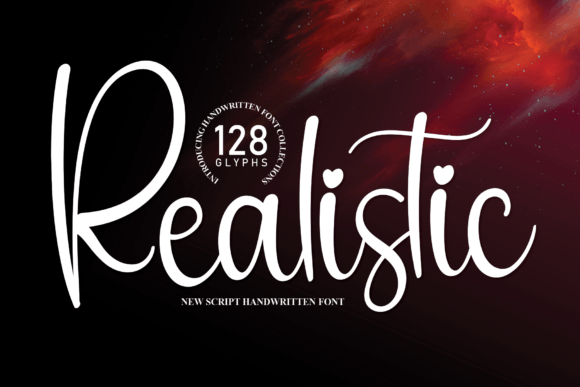
Journey into the world of authenticity with Realistic Font, a captivating script font family that breathes life into your digital creations. Inspired by the beauty of handwritten notes, Realistic Font exudes a sense of warmth and familiarity, making it the perfect choice for adding a personal touch to your projects.
With its graceful curves and effortless flow, Realistic Font brings a touch of elegance and charm to your designs. Whether you're crafting heartfelt greeting cards, eye-catching headlines, or captivating social media posts, this versatile font has you covered. Its wide range of applications makes it a must-have for designers, bloggers, and creative professionals seeking a touch of authenticity.
Unleash your imagination and let Realistic Font transport you to a world of creativity. Its user-friendly design makes it easy to incorporate into your projects, allowing you to effortlessly add a touch of sophistication and charm. Experience the joy of creating designs that resonate with your audience, leaving a lasting impression that speaks volumes.
So, dive into the world of Realistic Font today and unlock the endless possibilities it holds. Let your creativity soar as you design projects that capture hearts and leave a lasting legacy. Embrace the power of authenticity and make your mark in the digital realm with Realistic Font, the font that brings your creations to life.